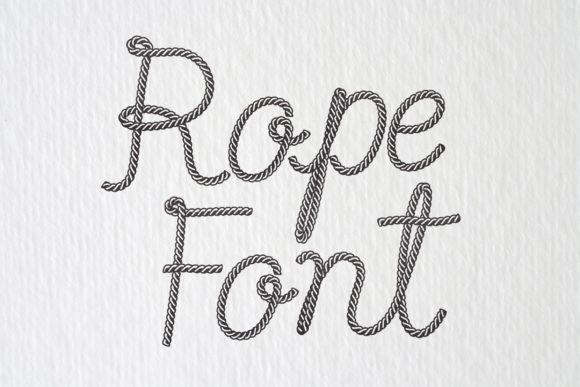
Introducing Rope Font – the ultimate font style for lettering enthusiasts! Created by the brilliant minds at Doo Design Studio, Rope is a cool and uniquely designed decorative font that’s perfect for a wide range of creative projects.
Crafting, digital designing, presentations, greeting cards – you name it, Rope Font has got you covered. With its intricate and eye-catching design, this font is sure to make your work stand out from the crowd.
What sets Rope Font apart is its ability to convey a sense of adventure and exploration, making it the ideal choice for anyone who wants to add a touch of excitement to their projects. Whether you’re designing a poster for your next travel adventure or creating a logo for an outdoor-themed brand, Rope Font will help you achieve the perfect look and feel.
Plus, with its rich and varied character set, Rope Font gives you plenty of options to play around with. From bold, attention-grabbing headlines to elegant and understated text, this font has everything you need to take your design game to the next level.
And let’s not forget about the emotional impact of Rope Font. Its intricate and unique design is sure to captivate your audience and make them feel truly immersed in your creative vision.